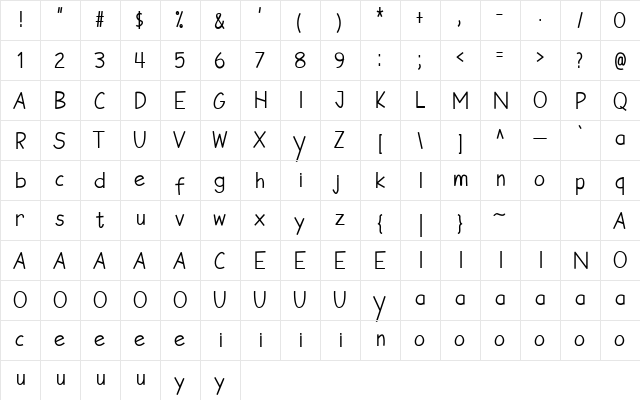
Farm House FS Regular
| Foundry | Farz Studio |
| Designer | Farz Studio |
Design Context for Farm House FS Typeface
Farm House FS is a composed and adaptable typeface that performs quietly and consistently across a wide range of design contexts.